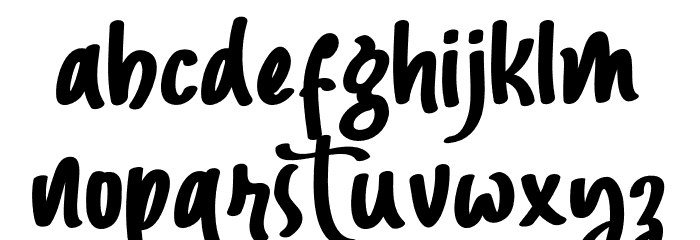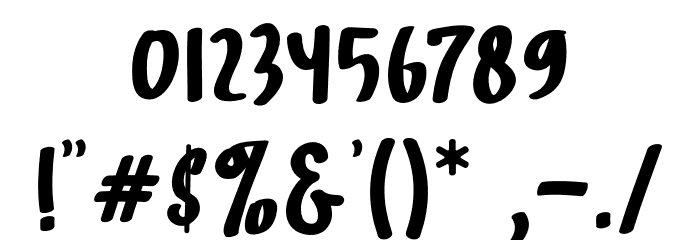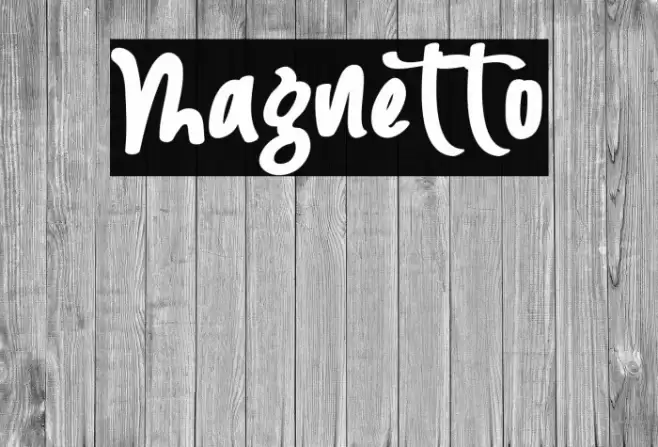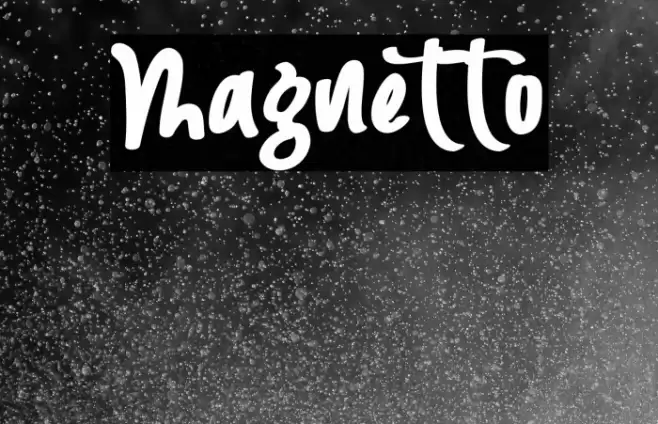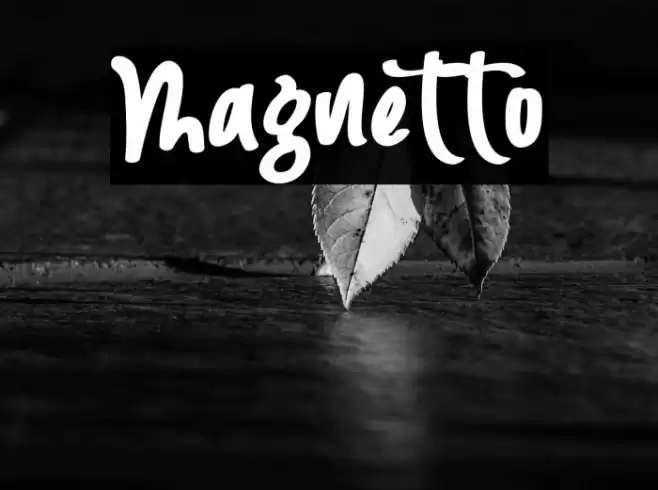
Magnetto Font
This font features a bold, handwritten style with a playful and energetic appearance. The letters are slightly slanted, giving a dynamic flow to the text. The strokes are thick and consistent, providing a strong visual impact. The uppercase and lowercase letters maintain a cohesive look, while the numbers and special characters complement the overall design. The font's informal and lively nature makes it suitable for creative and expressive projects.
- Proposed Projects: Ideal for greeting cards, posters, branding, and social media graphics.